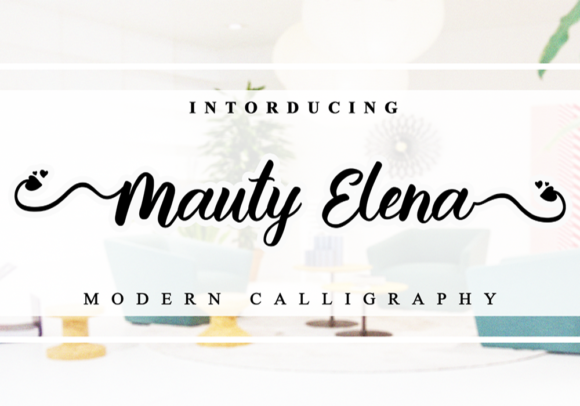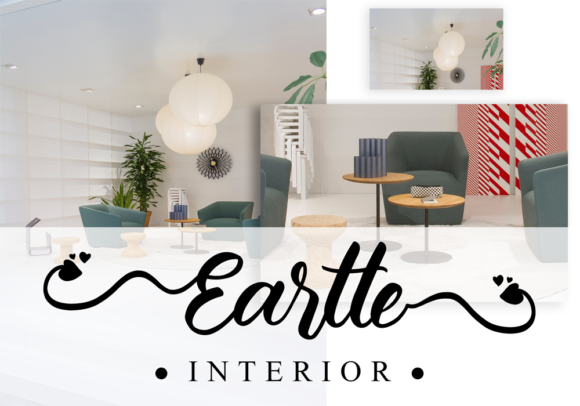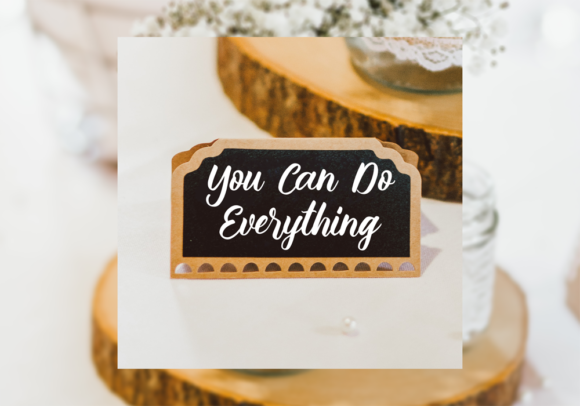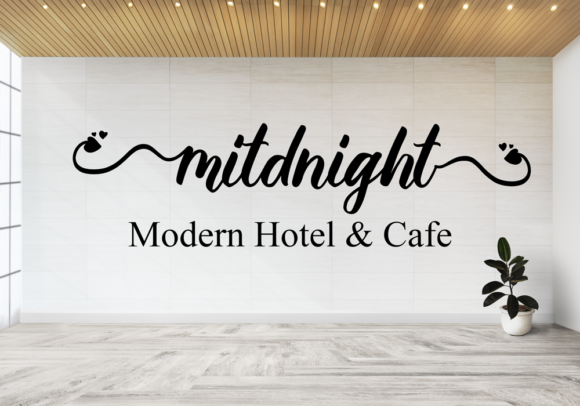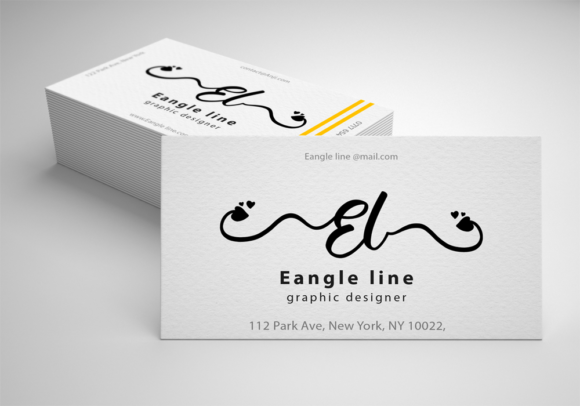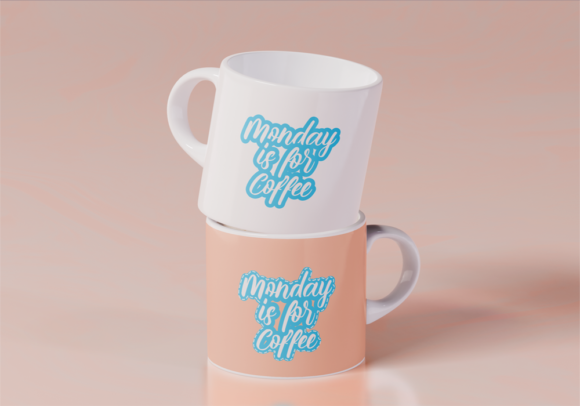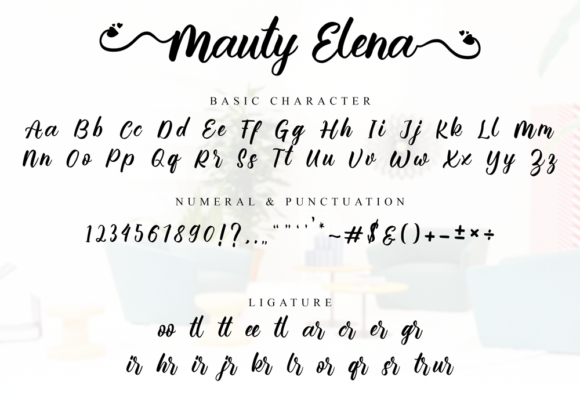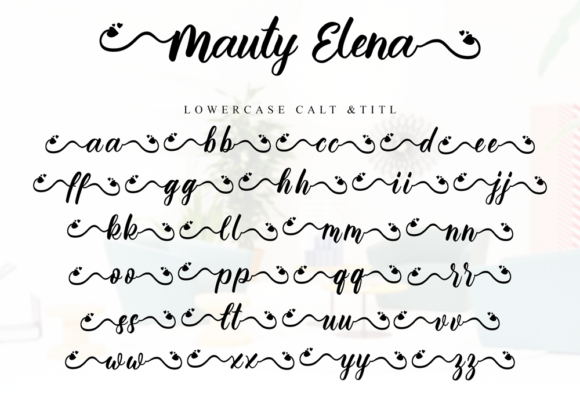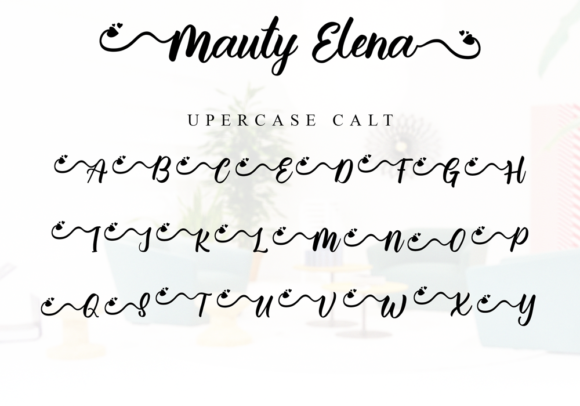
Mauty Elena Font
About Mauty Elena Font
Mauty Elena feels equally charming and elegant. It looks stunning on wedding invitations, thank you cards, quotes, greeting cards, logos, business cards and every other design which needs a handwritten touch.